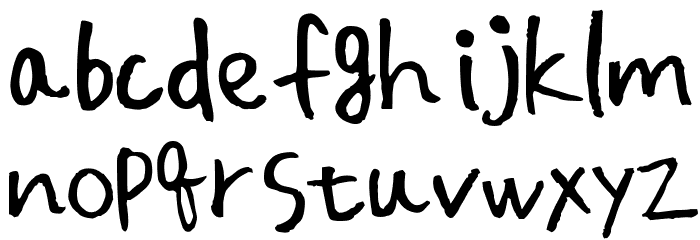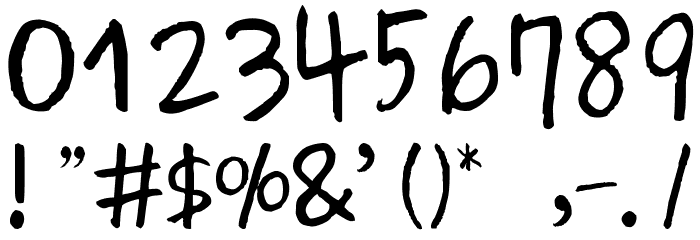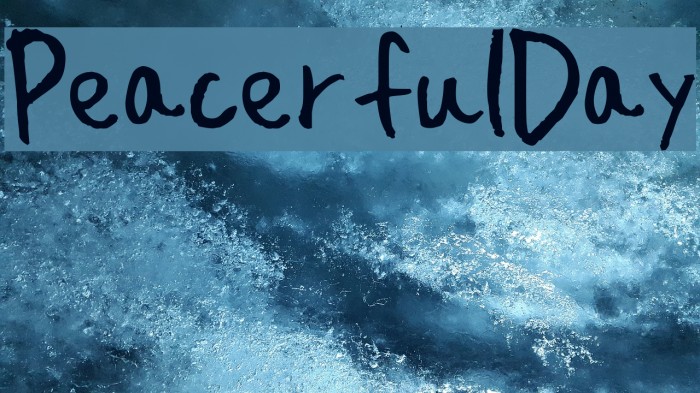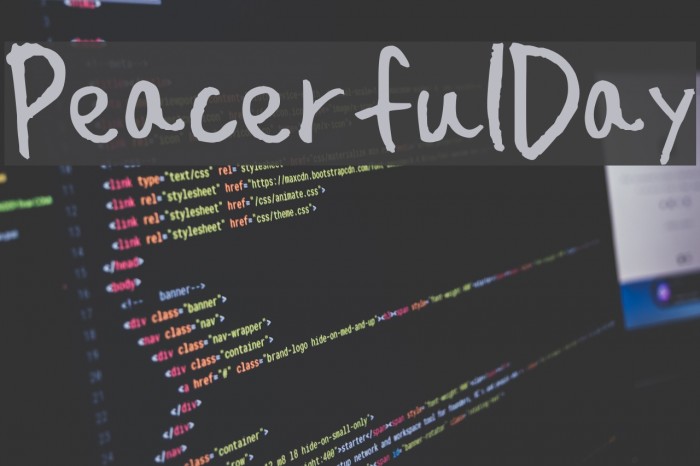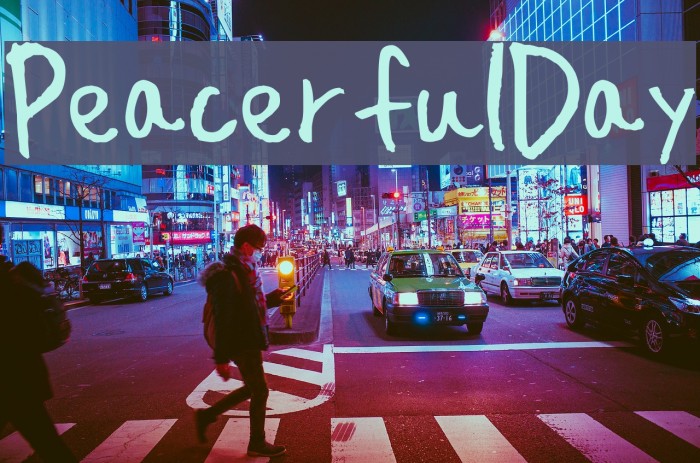
PeacerfulDay Font
This font exudes a casual, handwritten style that mimics the natural flow of penmanship. The letters are slightly irregular, adding a personal touch and warmth to the text. The strokes are consistent in thickness, providing a uniform appearance while maintaining a playful and approachable vibe. The characters are well-spaced, ensuring readability without compromising the informal aesthetic. This font is versatile, suitable for projects that require a human touch or a relaxed, friendly tone.
A casual, handwritten font with a playful and approachable style.
- Proposed Projects: Ideal for greeting cards, personal blogs, informal invitations, and creative projects that benefit from a personal touch.
- Overall Style: Casual
- Use Case: Headlines, Informal text, Creative projects